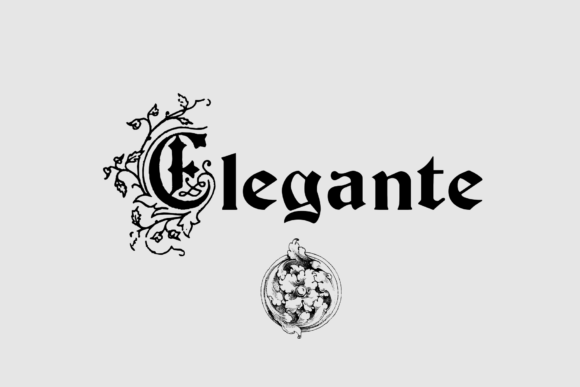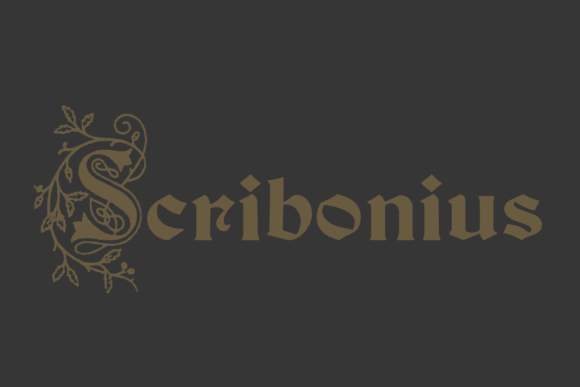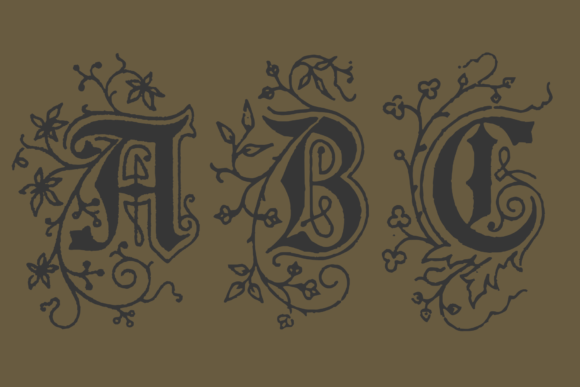
Introduction to Scribonius Gtslb Font
Have you ever been brainstorming for a creative project and suddenly, the perfect font pops into your mind? For designers, finding the right font can make all the difference between a mediocre and an exceptional design. This is exactly what happened when I stumbled upon the elegant Scribonius Gtslb Font – a game-changer for any bold branding or product packaging project.
Scribonius Gtslb Font is an exquisite blackletter font with ornate initials, perfect for making a statement. Its clean design and ornate details make it a valuable resource for designers seeking to add a touch of sophistication to their work. Whether you’re designing a quote, t-shirt, label, poster, or logo, this font is sure to elevate your project.
Key Features of Scribonius Gtslb Font
- High-quality font designed for creative projects, perfect for designers and artists looking for a unique design resource.
- Designed with a high level of detail and precision, resulting in a crisp and clear font that is perfect for use in print and digital applications.
- Includes a range of glyphs and characters, making it a versatile font that can be used in a variety of creative contexts.
Honest Review: Scribonius Gtslb Font
I recently stumbled upon the Scribonius Gtslb Font, and I’m excited to share my thoughts on this free design resource. As a designer, I’m always on the lookout for high-quality fonts that can elevate my creative projects.
The Scribonius Gtslb Font is a great addition to any design arsenal. Here’s what I like about it:
- ✨ Unique and elegant design that adds a touch of sophistication to any project.
- ✨ High-quality font that’s perfect for use in digital design, print materials, or even signage.
While the Scribonius Gtslb Font is a great resource, I do have a few limitations to note:
- ⚠️ Limited character set, which may not be suitable for long-form text or complex projects.
- ⚠️ Not suitable for use in very small sizes, as the font may become difficult to read.
Overall, I’m impressed with the Scribonius Gtslb Font and would definitely recommend it to designers looking for a high-quality, free font to add some flair to their creative projects.
Tips for Getting the Most Out of Scribonius Gtslb Font
To get the most out of Scribonius Gtslb Font, use it in combination with a transparent background to create a high-quality design. You can also experiment with different font sizes and styles to create a unique and creative project.
Scribonius Gtslb Font is commonly used in design projects that require a high-quality, elegant font. Some common use cases include: